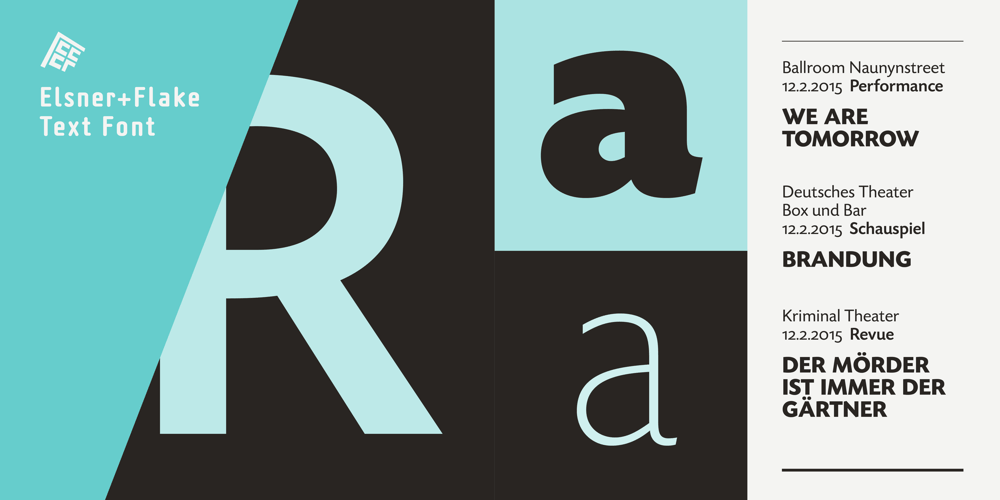
Today Sans Now Font Family was designed by Volker Küster and published by Elsner+Flake. Today Sans Now contains 32 styles and family package options. With the publication of the “Today Sans Now” Elsner+Flake extends its offering of the “Today Sans Serif” type family, developed in 1988 by Volker Küster for Scangraphic, by another cut so that the gradation of the stroke width can now be more finely calibrated. The type complement is available for 72 Latin-based languages as well as Cyrillic. Where available, small caps were integrated, and mathematical symbols as well as fractions were included. In order to make the symbols for text applications in regard to headlines more flexible, the insertions which were formerly added, for technical reasons in order to sharpen the corners, were eliminated, and the optical size adjustments of the vertical and diagonal stem endings (I, v, H, V) to the horizontal bars (z, Z) were scaled back. Already since the end of 1984, Volker Küster experimented with broad sticks of chalk and a broad felt pen in order to develop a new sans serif typeface which, in the interest of easy legibility, would be built on the basic structures and proportions of the Renaissance-Antiqua. Using a normal angle of writing, his experiments lead to the form structure of the characters: a small contrast between bold and light weights, serif-like beginning and end strokes in some of the lower-case characters, and the typical, left-leaning slant of all round lower-case letters and the typical left-leaning axis of all round letter forms. In this way, a rhythmization of a line of type was achieved which created a lively image without being “noisy”. With this concept, Volker Küster has enlarged the Sans Serif by a distinctive, trend-setting form variation.